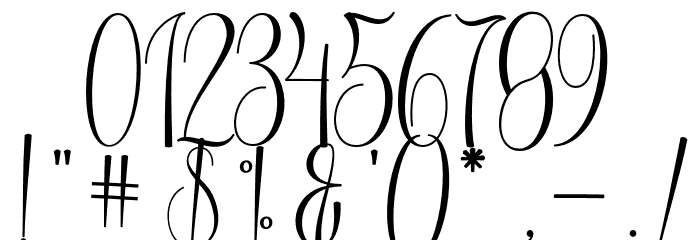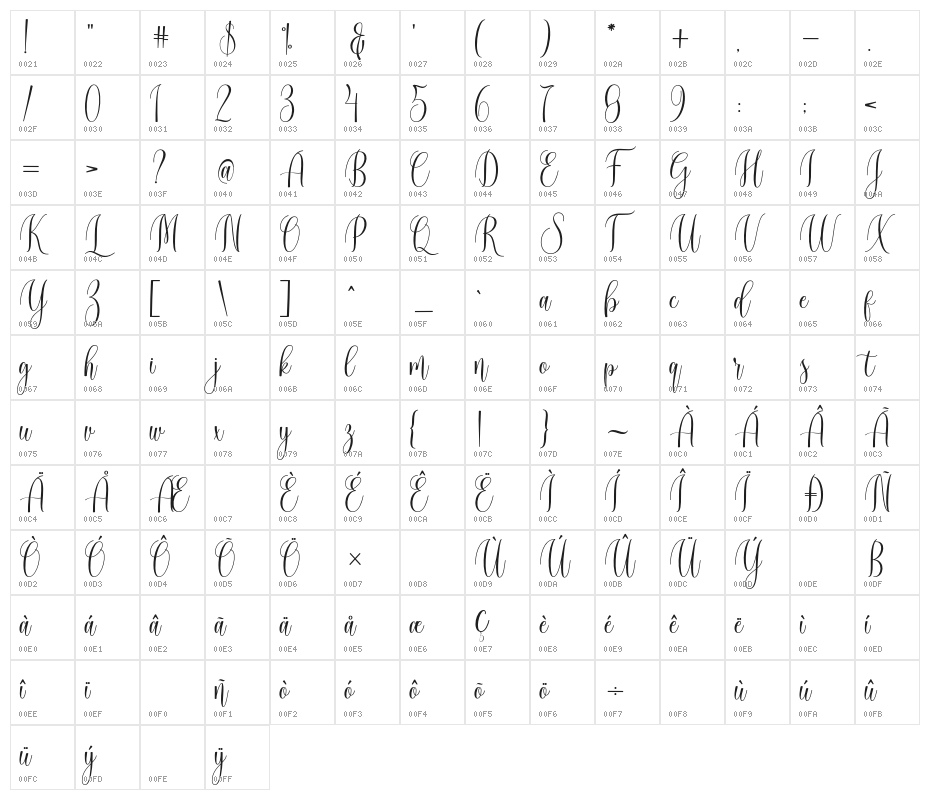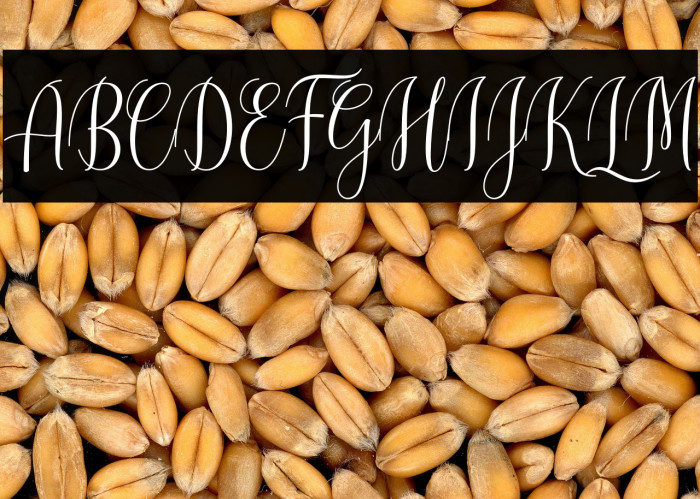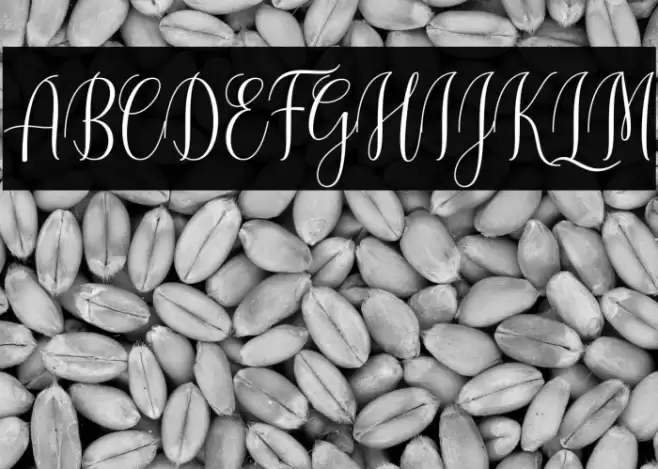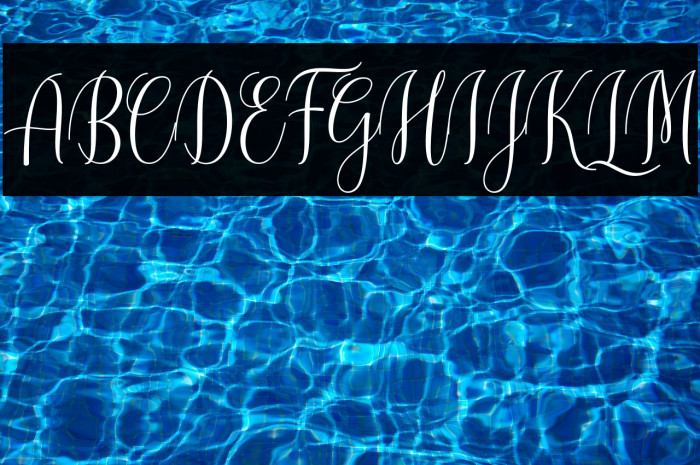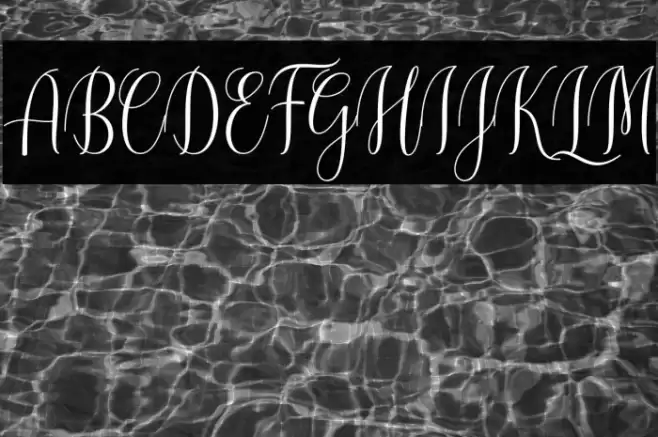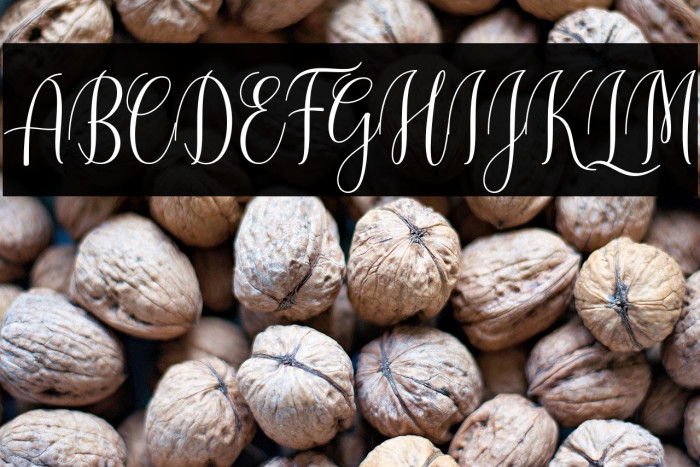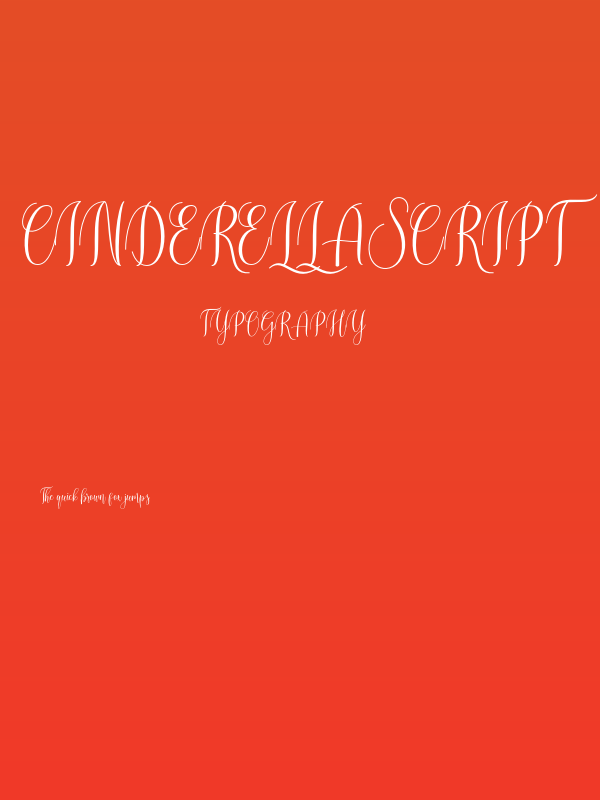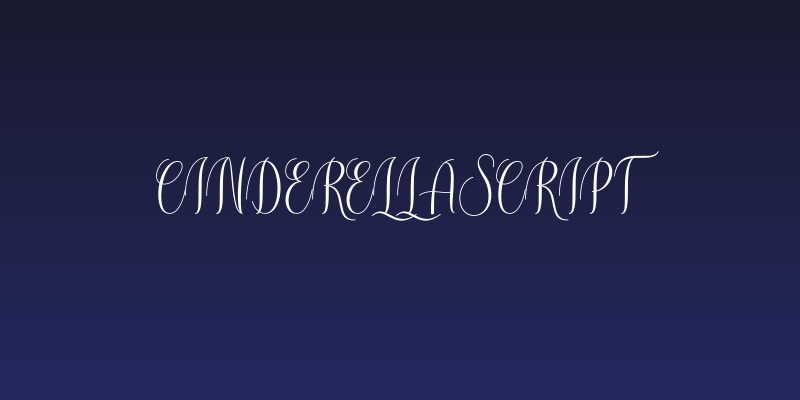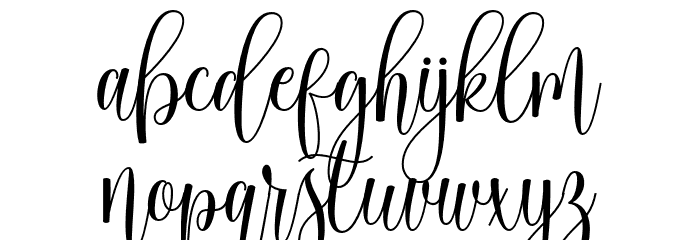
CinderellaScript Font
CinderellaScript Description
This elegant script font features flowing, interconnected letters that exude a sense of grace and sophistication. The uppercase characters are tall and slender, with delicate loops and swirls that add a touch of whimsy. The lowercase letters maintain a consistent flow, with smooth transitions between each character. The numerals are stylish and maintain the same elegant curves as the letters, ensuring a cohesive look throughout. Special characters are thoughtfully designed to match the overall aesthetic, making this font perfect for projects that require a touch of elegance and charm.